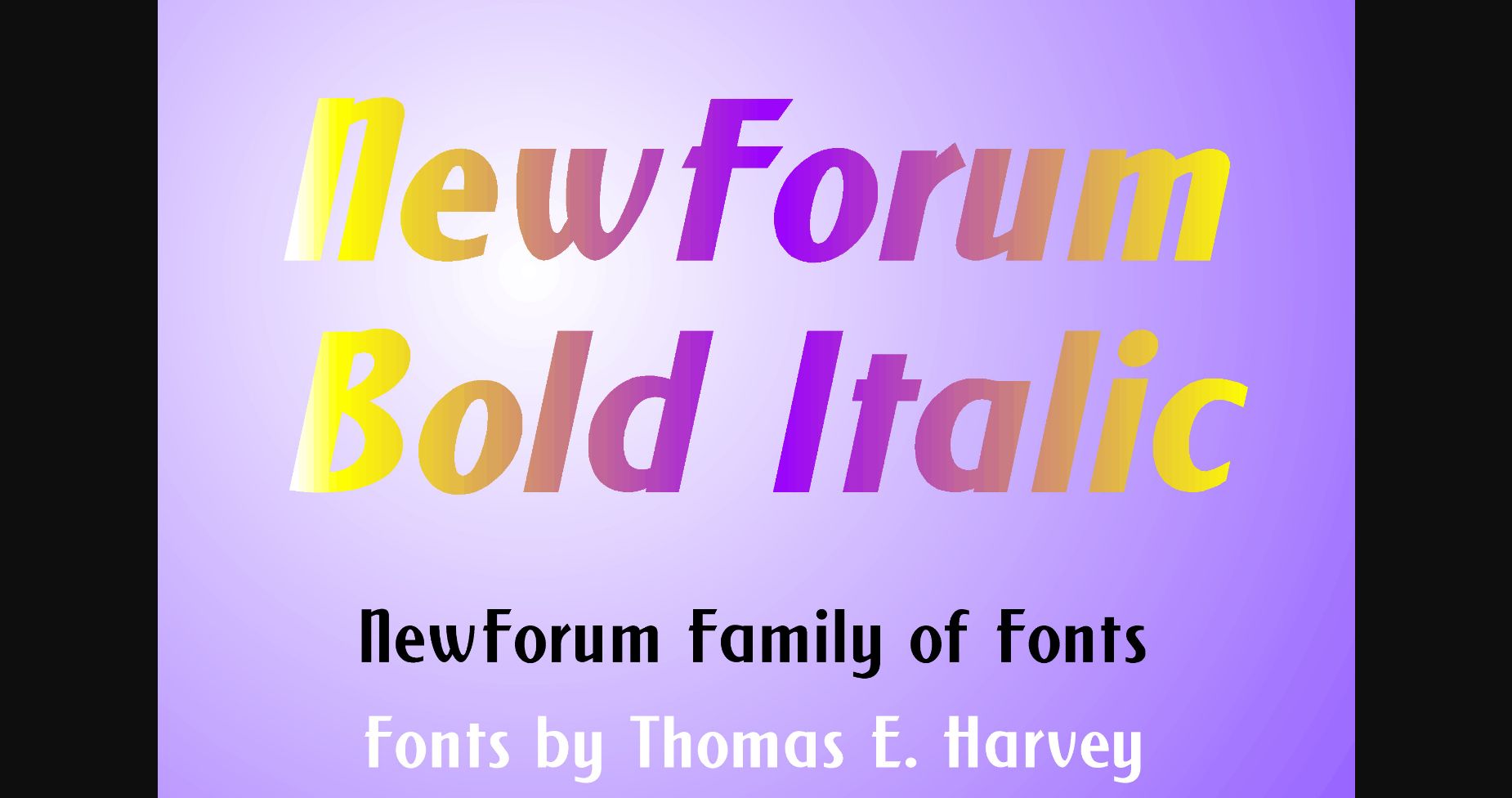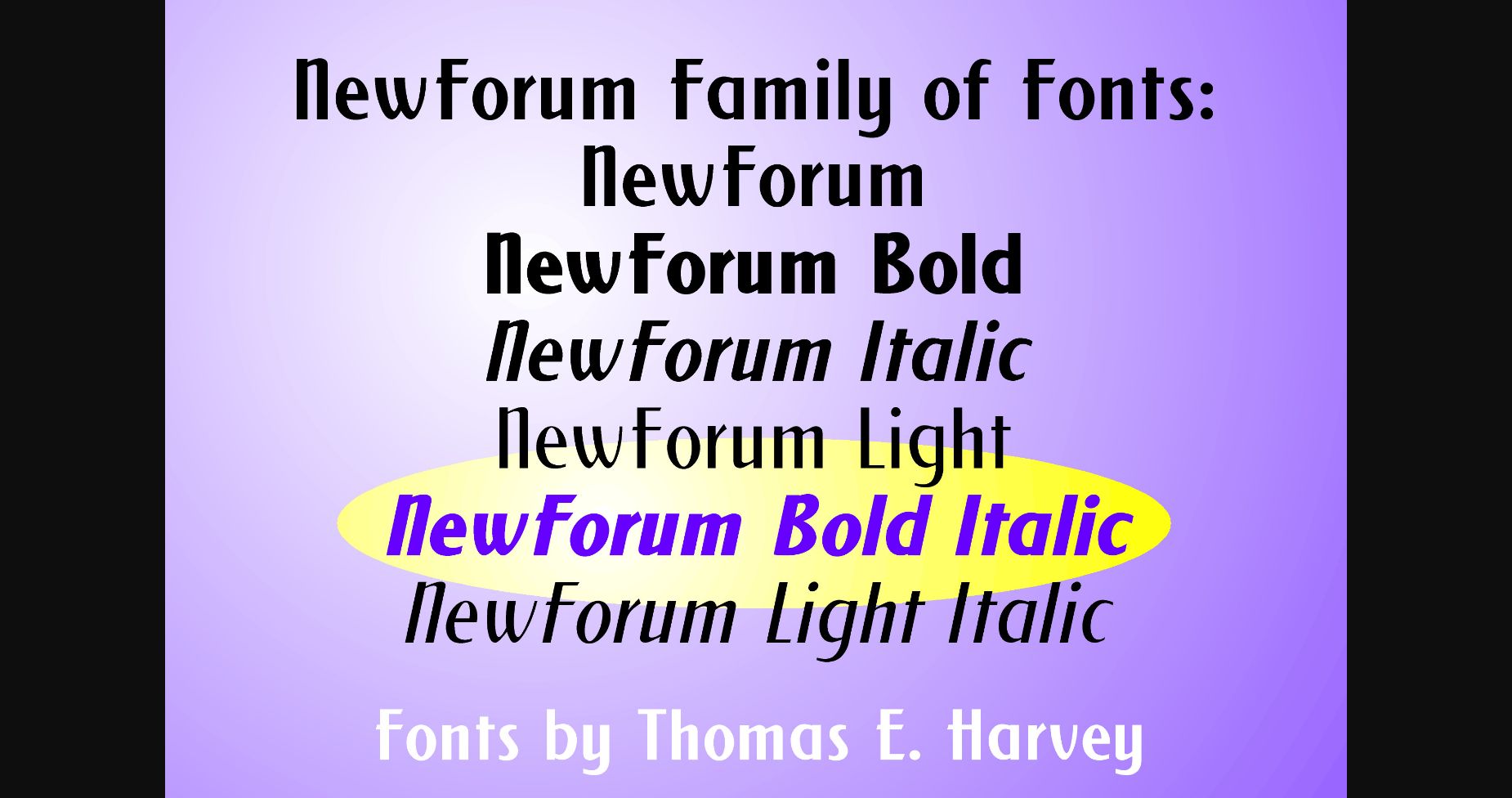
About New Forum Bold Italic Font
New Forum Bold Italic is an incredibly versatile and refined sans serif font. Adapted from a century-old design, it serves as both a friendly headline or logo typeface as well as in blocks of text. Use this font for your designs and explore its endless possibilities.